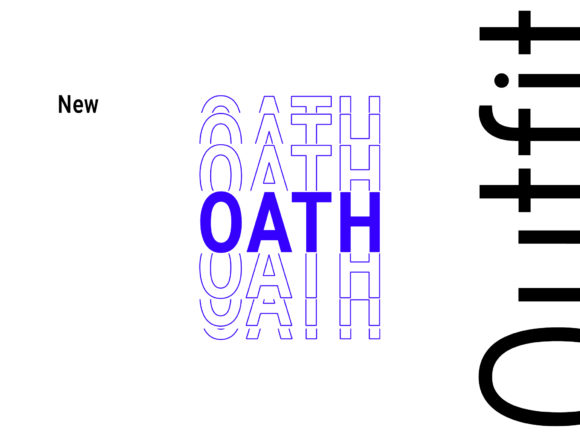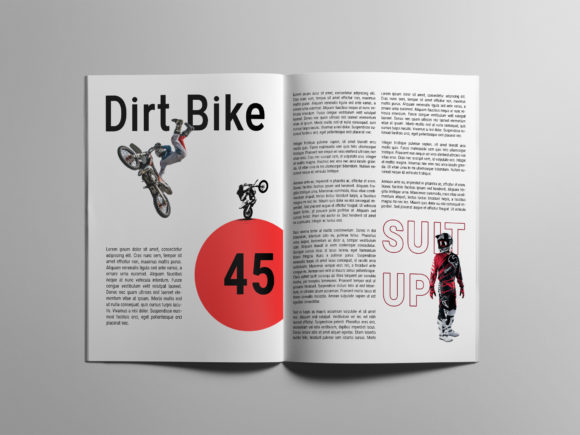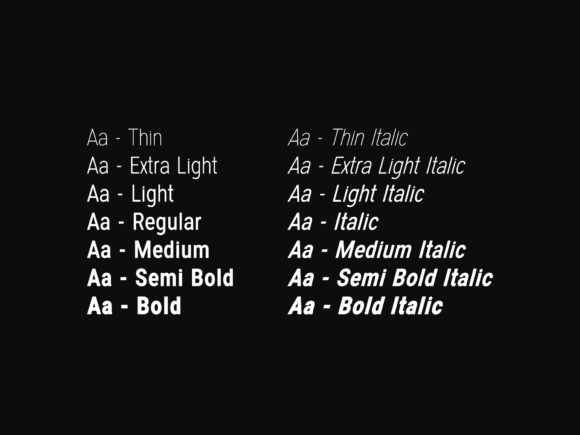
Introduction to Oath Font
As a designer, there’s nothing quite like the thrill of seeing a project come together. You’ve poured your heart and soul into every detail, from the color palette to the typography. But let’s be honest, sometimes the perfect font can be the difference between a good design and a great one.
That’s where Oath Font comes in – a stunning, modern sans-serif typeface that’s about to become your new go-to design resource. With 14 variants at your disposal, you can create a cohesive look that’s both high-quality and visually appealing, whether you’re working on a personal project or a client’s creative endeavor.
What sets Oath Font apart is its exceptional readability, making it perfect for body text. Plus, with a transparent background, you can easily overlay your text on any image or background, giving you endless possibilities for creative projects.
Oath Font
- High-quality design resource ideal for creative projects and personal use
- Features a unique and modern design with a transparent background for easy customization
- Includes a range of characters, including uppercase and lowercase letters, numbers, and symbols
- Perfect for designers, artists, and writers looking for a stylish and professional font for their creative projects
Honest Review: Oath Font
I recently stumbled upon the Oath Font, and I must say it’s been a game-changer for my design projects. This free download has been a valuable addition to my design resource library, offering a unique and versatile aesthetic that’s perfect for creative projects.
What works well: ✨ The Oath Font’s high-quality design is instantly recognizable, making it an excellent choice for any project that requires a touch of sophistication. The transparent background allows for seamless integration with various backgrounds, giving designers complete creative control. Additionally, the font’s clean and modern lines make it perfect for use in both digital and print media.
What could be improved: ⚠️ While the Oath Font is an excellent choice for most design projects, I did find it to be a bit limited in terms of its versatility. The font family is relatively small, which can make it difficult to achieve a cohesive look across different elements of a design.
Overall, I’m thoroughly impressed with the Oath Font, and I would highly recommend it to any designer looking to add some visual interest to their creative project. With its high-quality design and transparent background, this font is a valuable asset for any design resource library.
- Perfect for digital and print media
- High-quality design with transparent background
- Unique and versatile aesthetic
The Oath Font is a high-quality design resource that offers a free download for creative projects. With its unique and modern style, it’s perfect for adding a touch of sophistication to your designs.
Tips for Getting the Most Out of Oath Font
Use the Oath Font on a transparent background to create a unique and eye-catching design.
Combine the Oath Font with other design elements, such as graphics and images, to create a visually appealing design.
The Oath Font is perfect for:
Creating business cards and letterheads
Designing websites and landing pages
Developing marketing materials and brochures